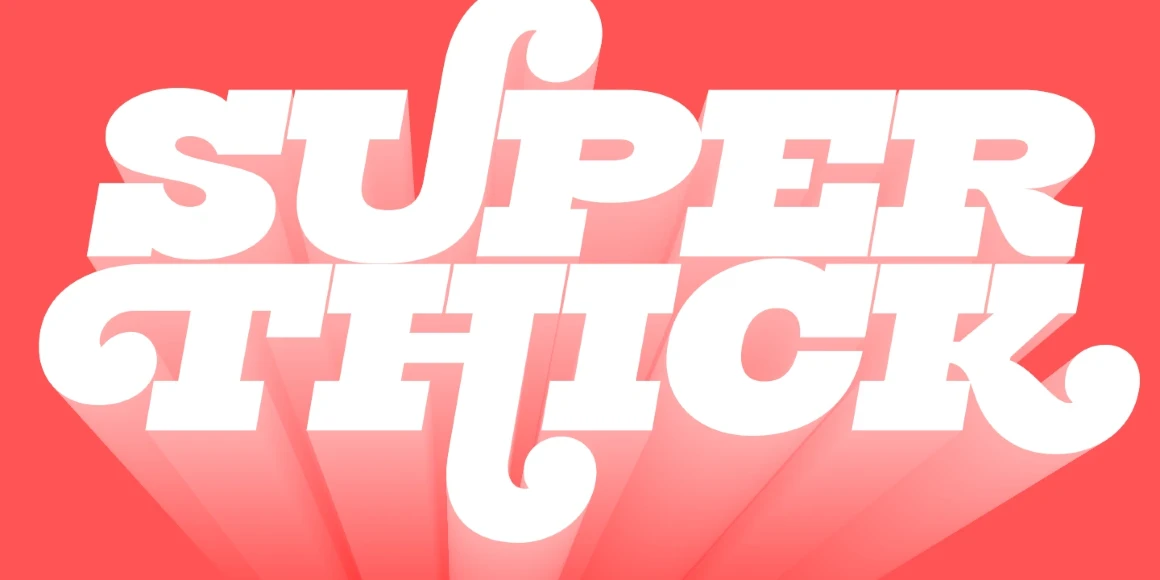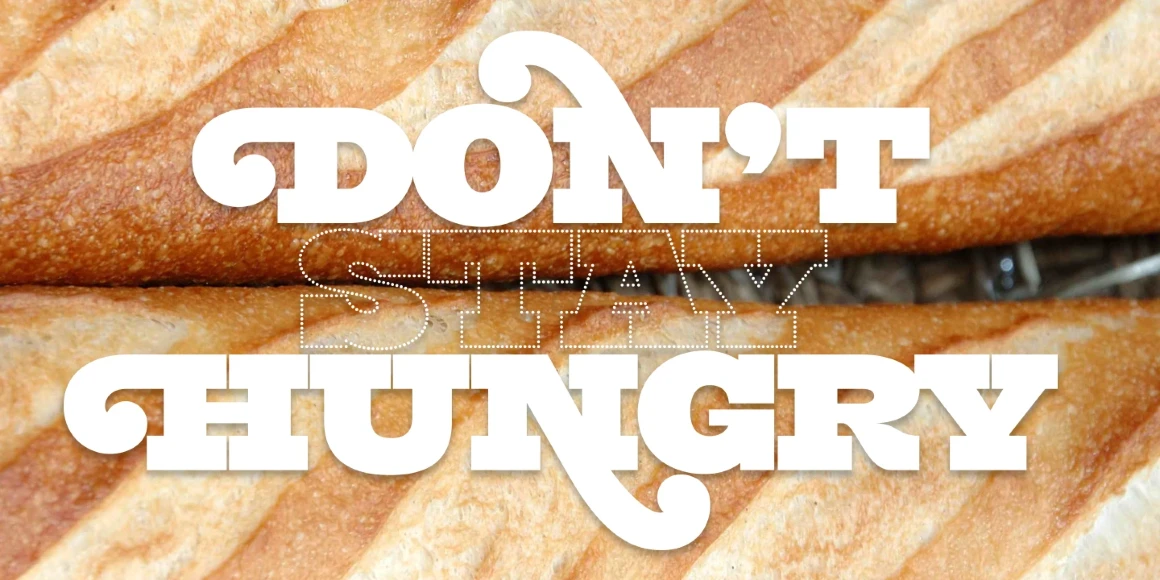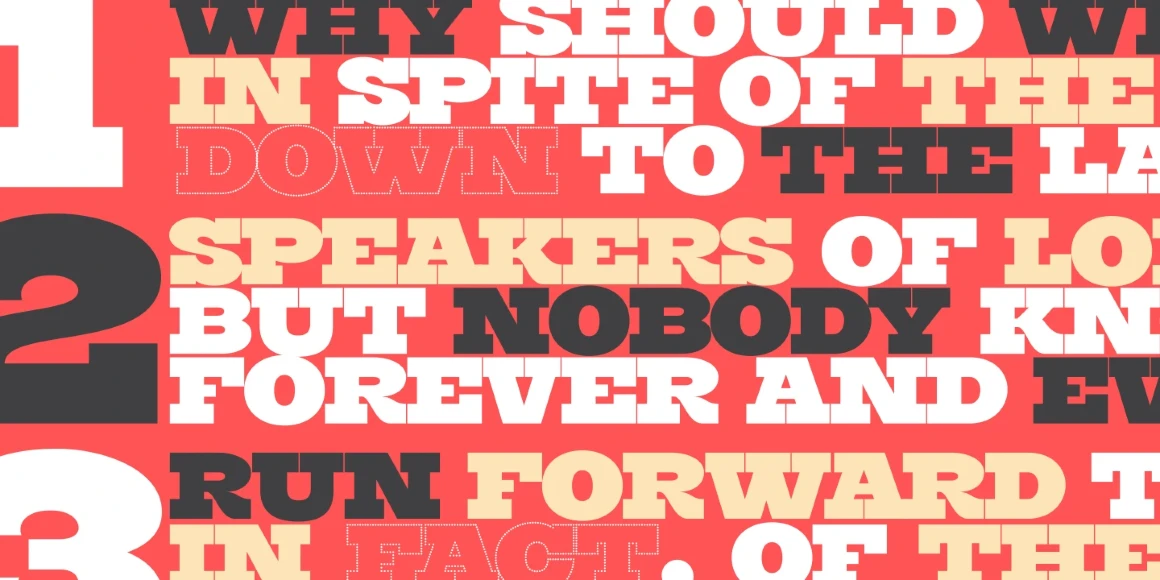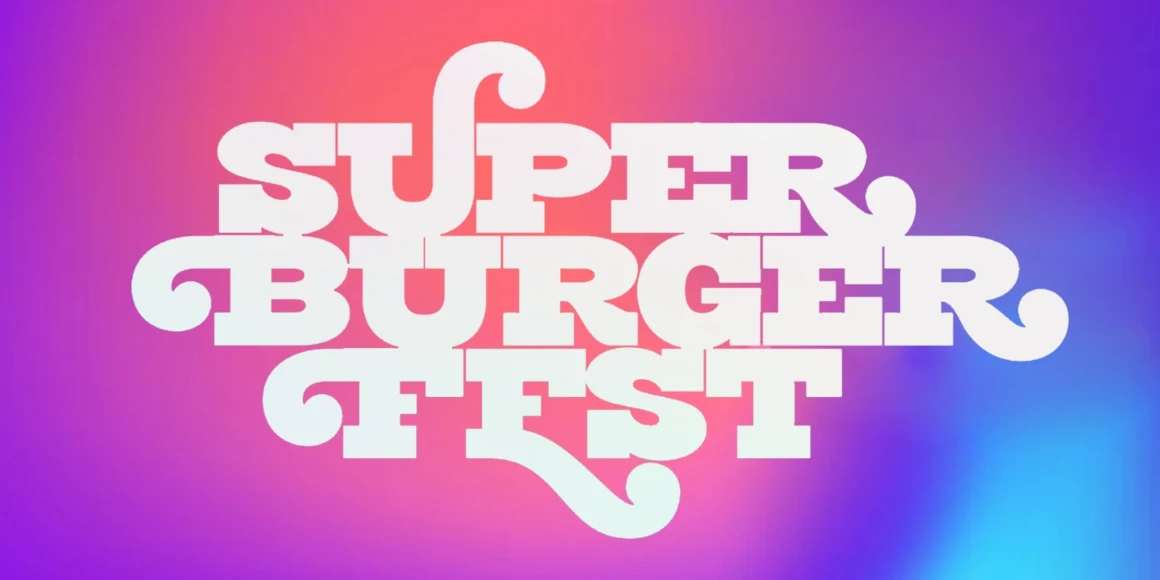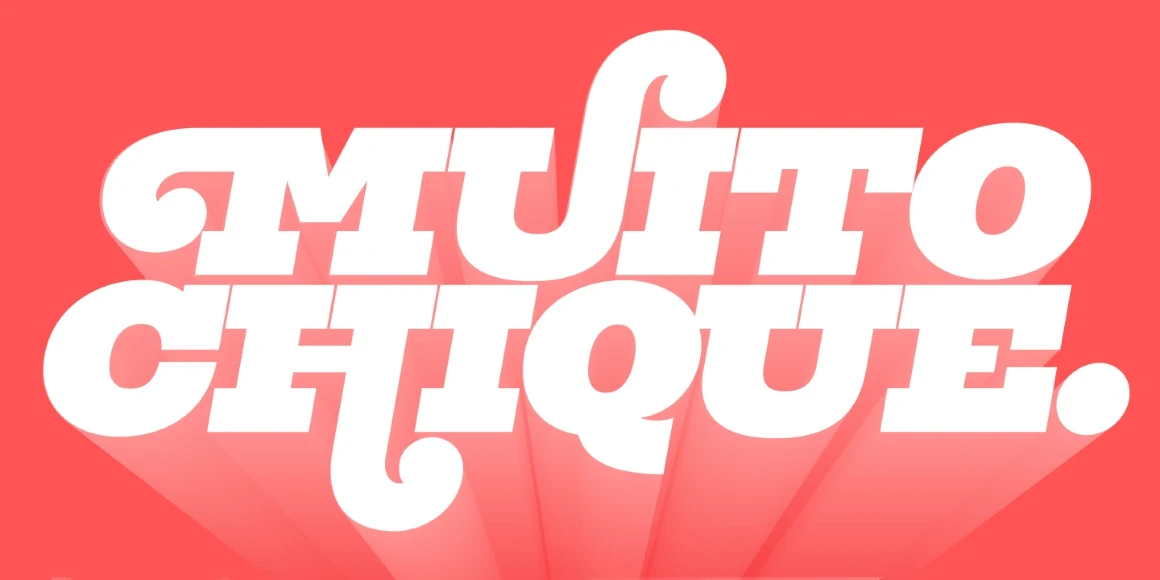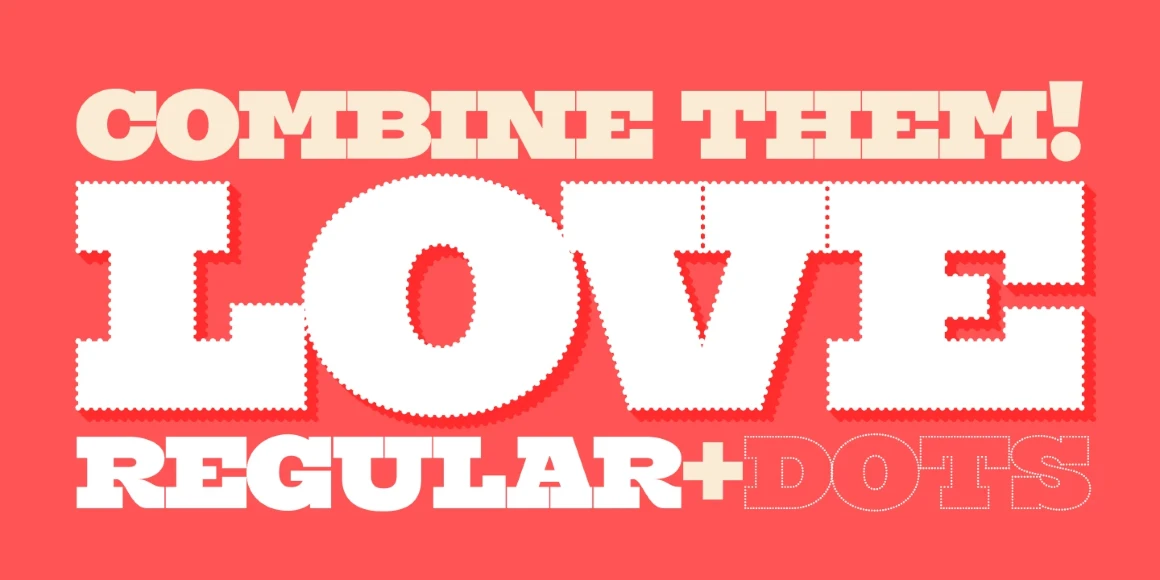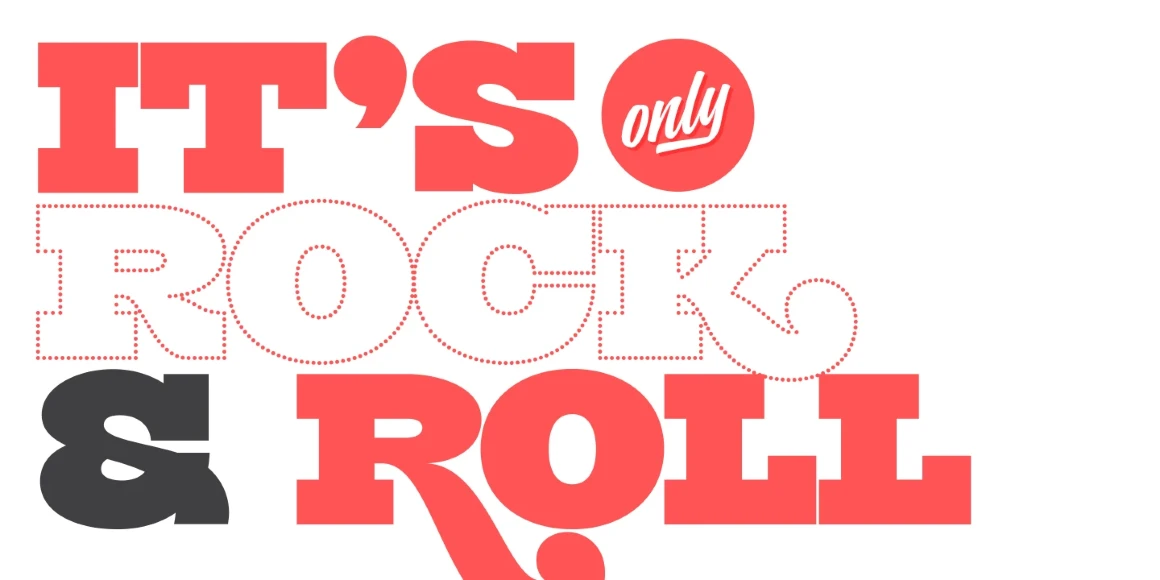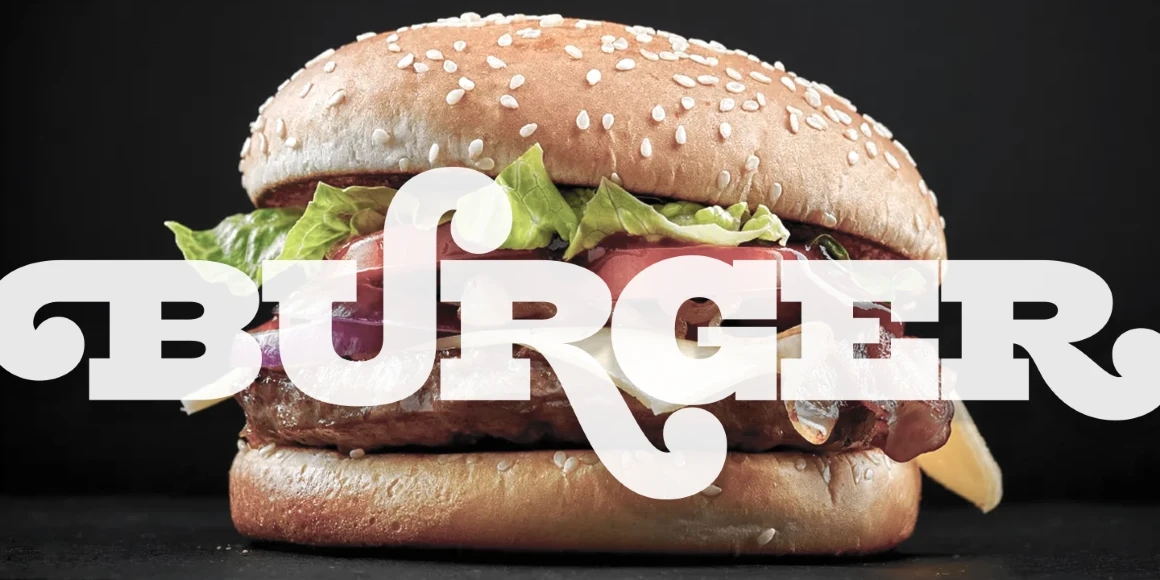
Burger
By Maximiliano Sproviero
Burger Dots
Burger Regular
Burger Regular Italic
Burger is a bold slab serif family. Inspired by the fast food world, Max aimed to achieve a head-turning all-caps typeface. Since it’s not common to see slabs with swashes, this project was an experiment with intriguing results. Generally seen as more formal, this juicy char-grilled slab is playful and unique. All the glyphs, including the swashy ones, had to look like compact blocks to maintain an even weight. Comfort food deserves better fonts, right?! Designers! Come on, give Burger a try!